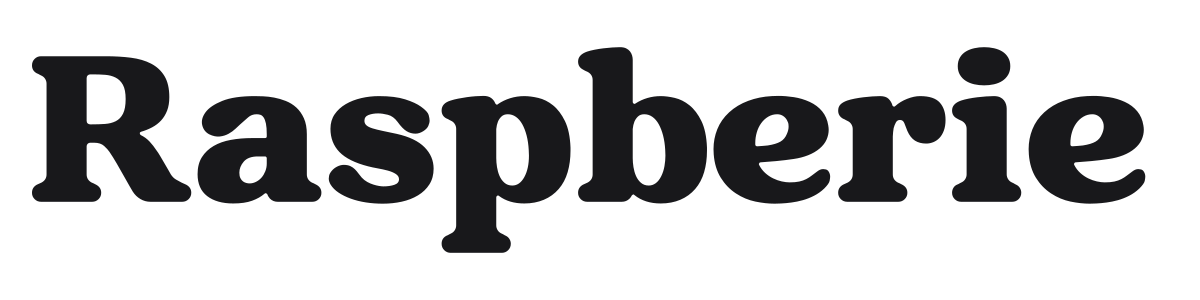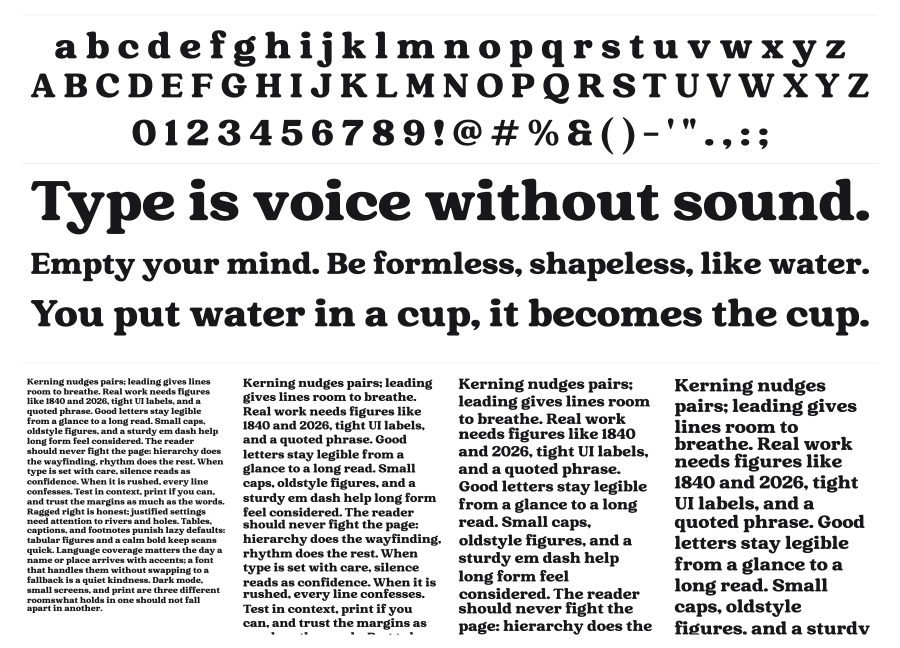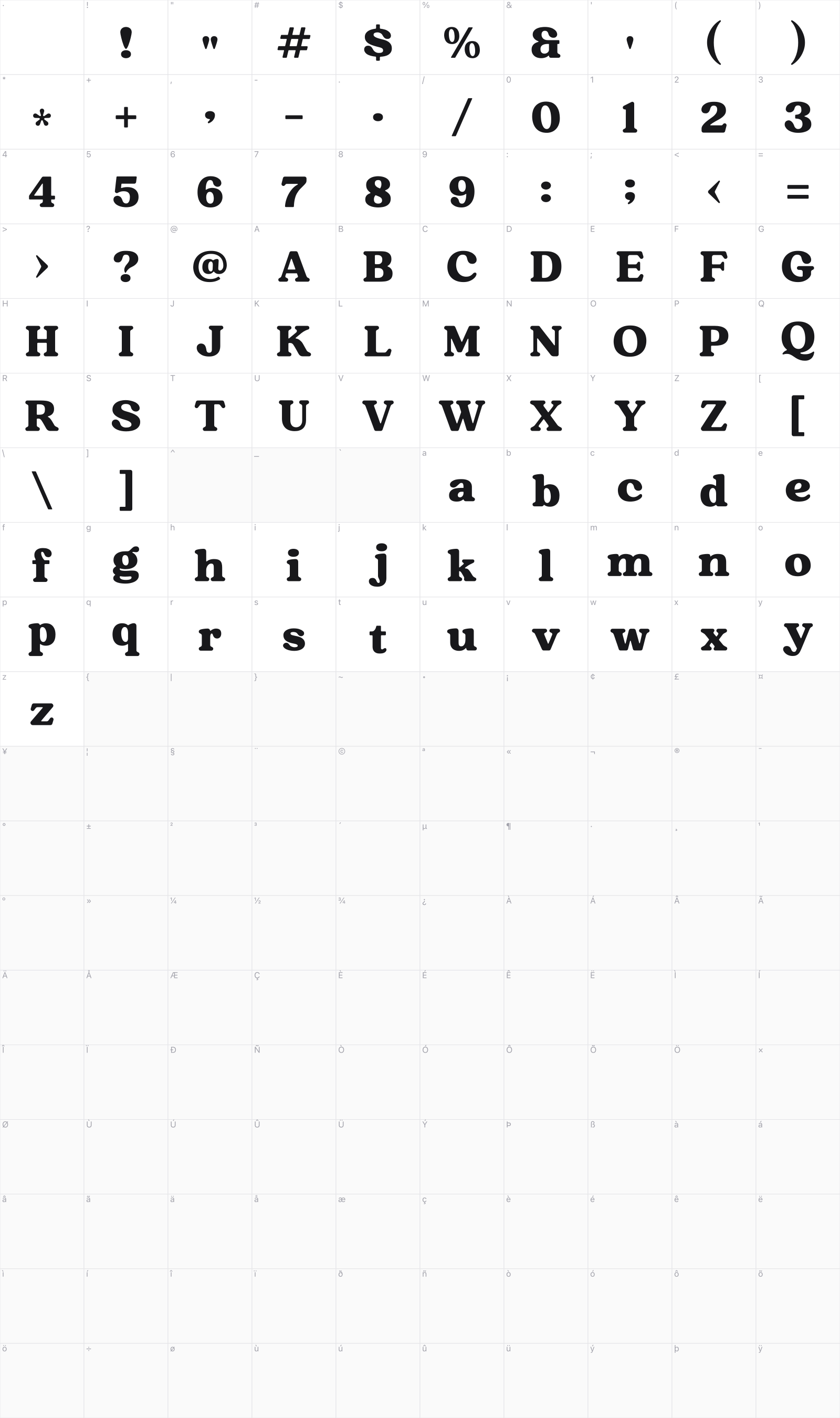
Raspberie
Raspberie is a heavy slab serif with thick bracketed serifs and a warm, rounded character. The low stroke contrast and generous proportions give it a retro-modern feel that sits comfortably between mid-century workhorse and contemporary branding type. It carries real weight on the page without feeling rigid.